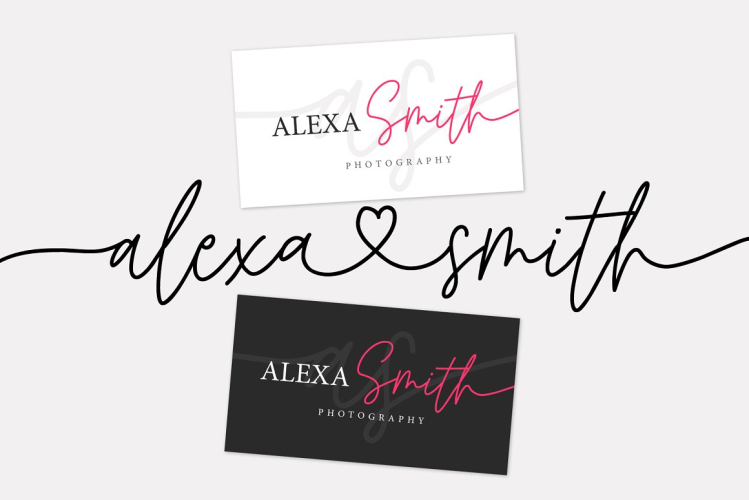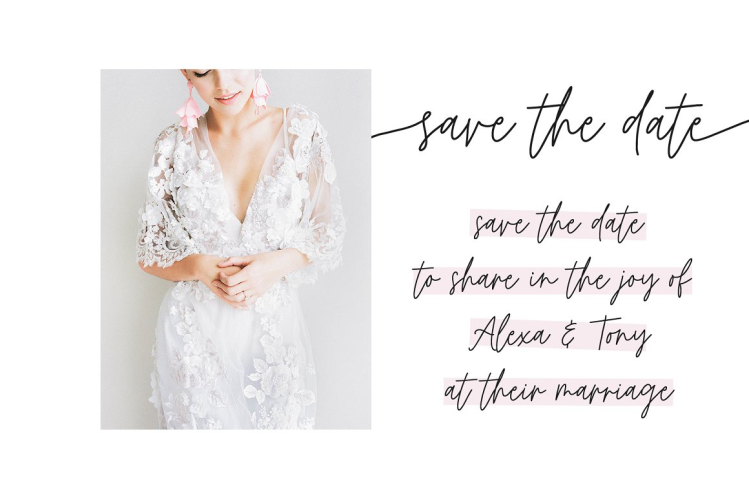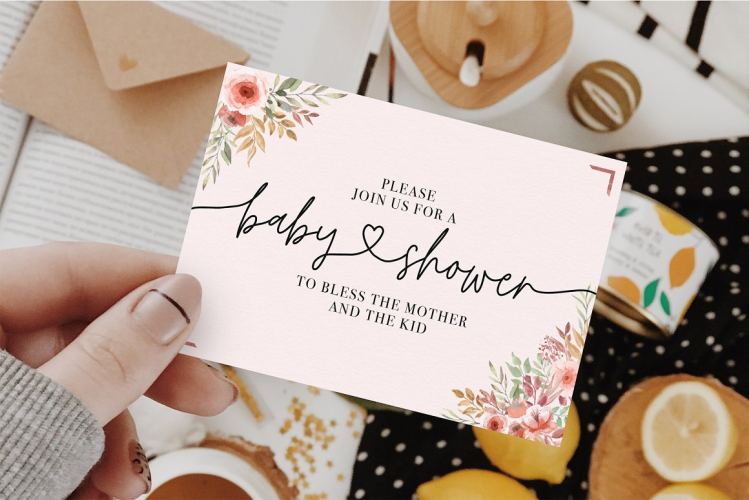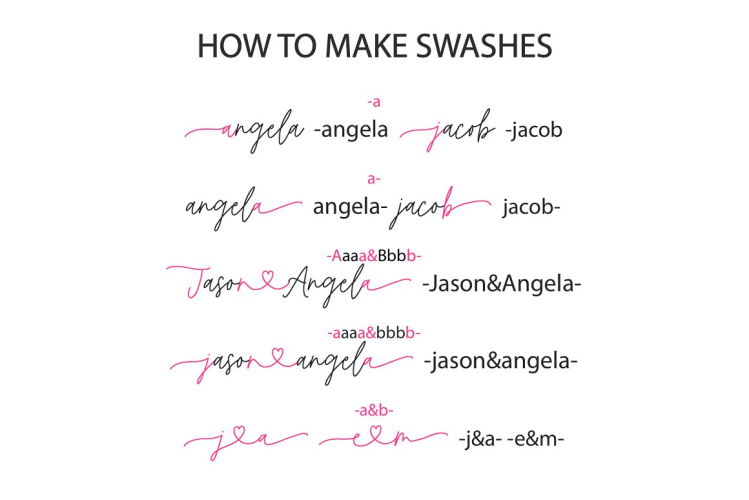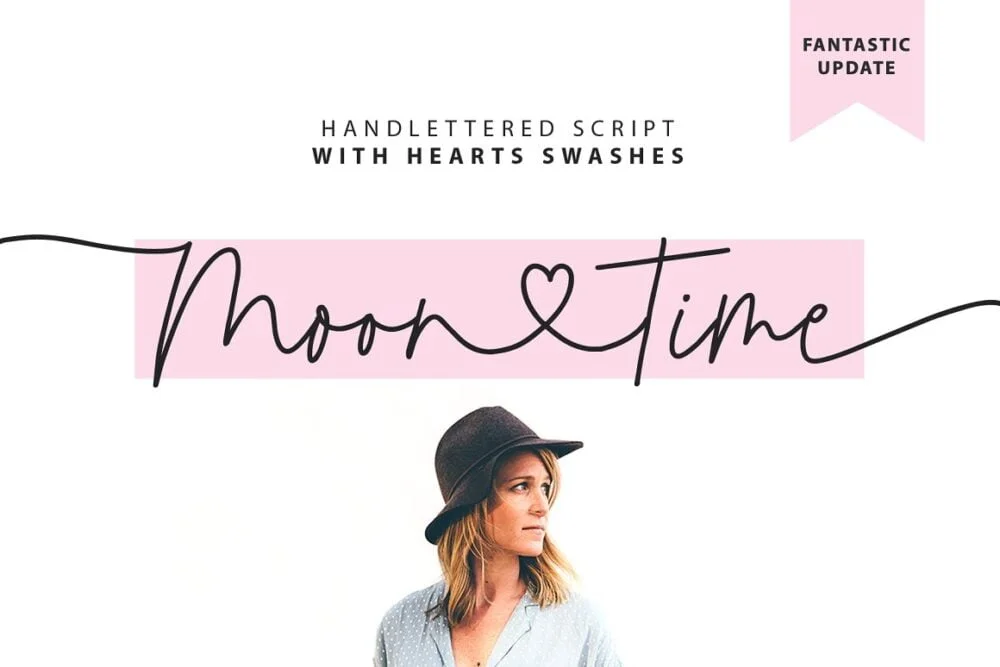
Moontime Font
Moontime Font is a custom modern calligraphy script. Every curve in the font has been carefully designed to create a signature Moontime Script which is one-of-a-kind and original. It comes as a full package of lower and upper case letters, a wide range of punctuation, numerals, and multilingual support. Can be a great tool for your lettering projects and for adding a touch of modernity and originality to your branding.
Also, there you can find wedding lettering or a nice frame for your home. Or you can also use these to make your book covers, stationery, magazine layout, and a lot more.
MoonTime Font is a font of its kind, bringing a feel of refined beauty and whimsical atmosphere. It has lines of which are very fine and curves, thus, it can be perfect for use in different creative processes.
Where Moontime Font works best
Moontime Font brings a personal, handwritten warmth to invitations, menus and place cards.
Craft brands — coffee, cosmetics, bakery — use scripts like Moontime Font for signature-style logos and labels.
Pair Moontime Font with a plain sans for quotes, stories and Pinterest pins that feel handmade.
What is Moontime Font good for?
Moontime Font is a Script And Handwritten typeface tagged Branding, Calligraphy, Creative, Elegant. It works well for headlines, logos, posters, social media graphics and branding projects that need a distinctive script and handwritten look.